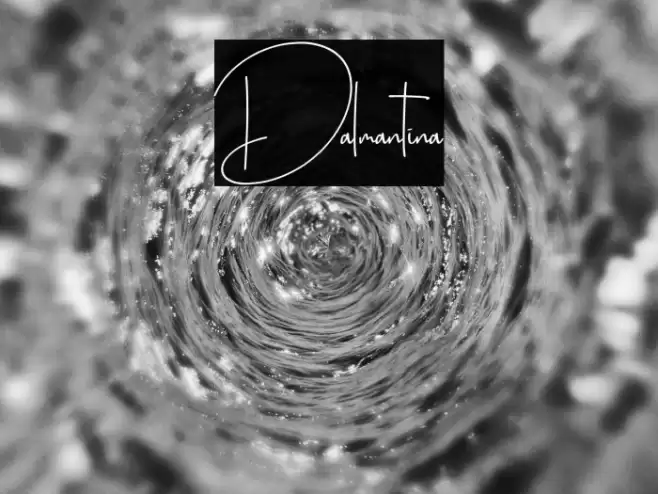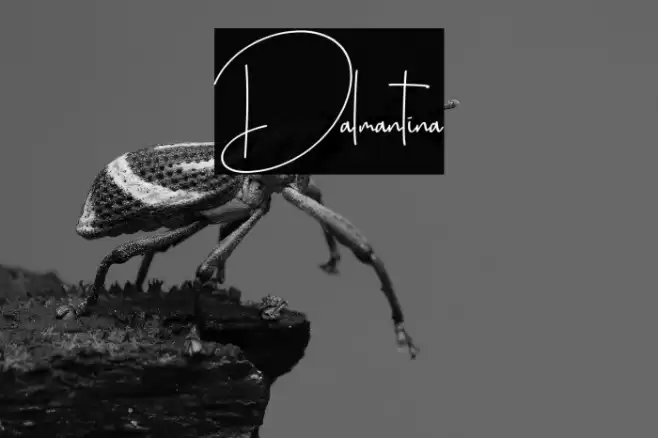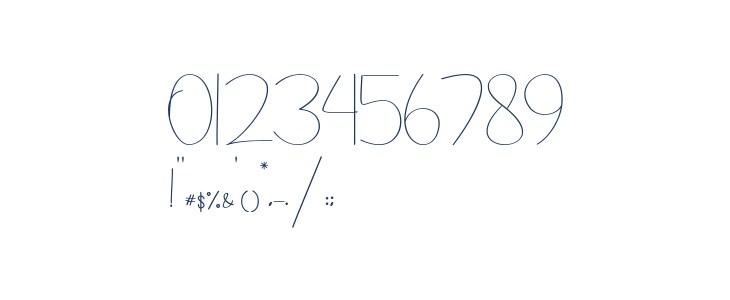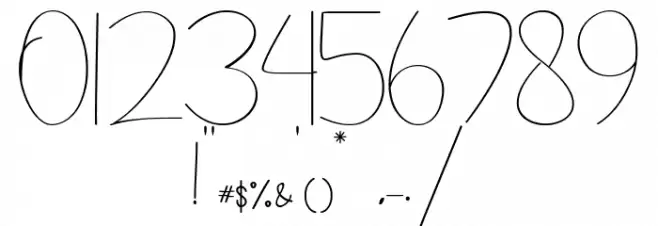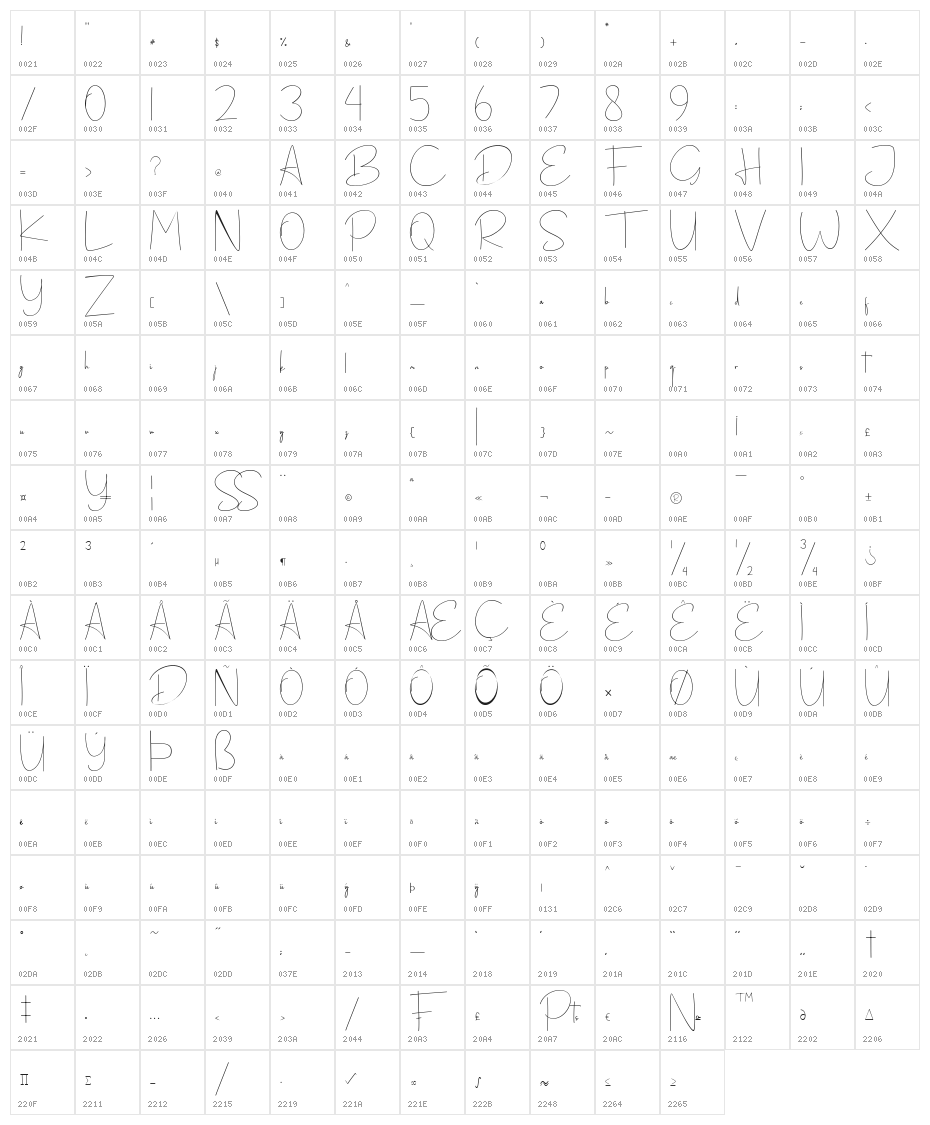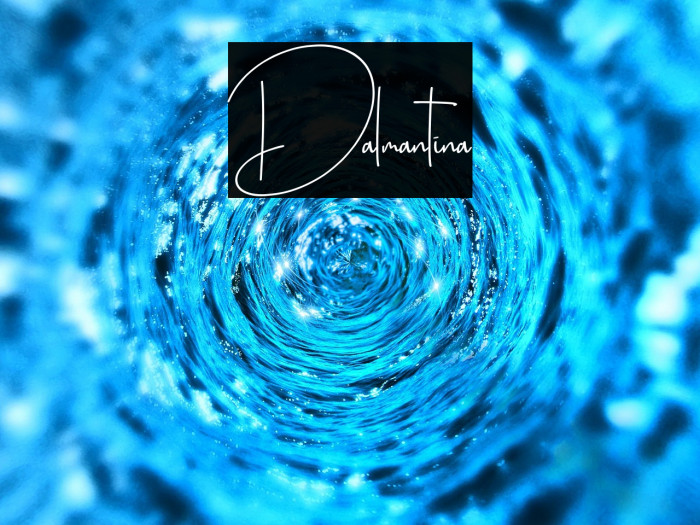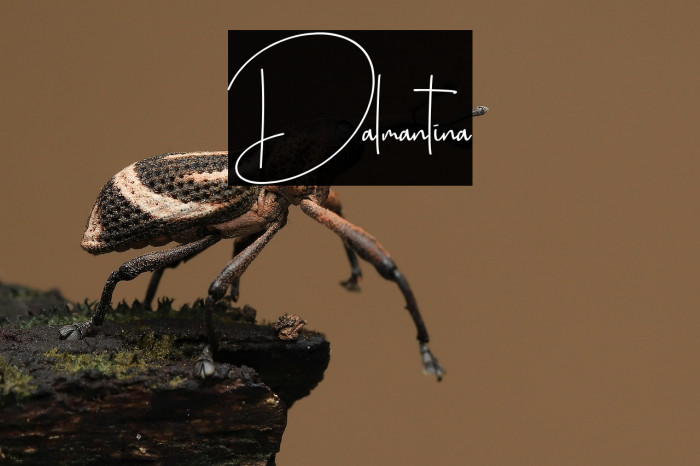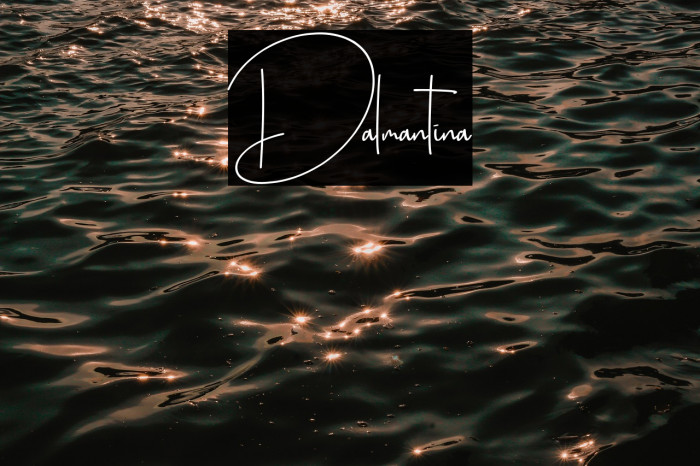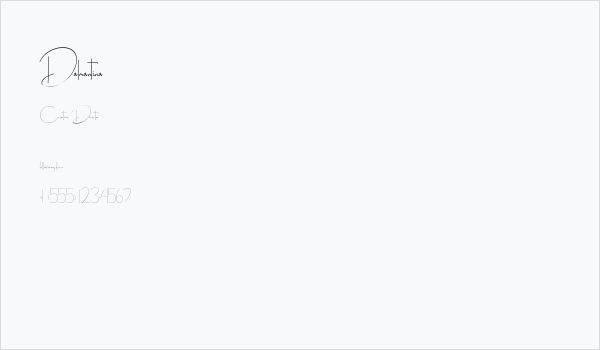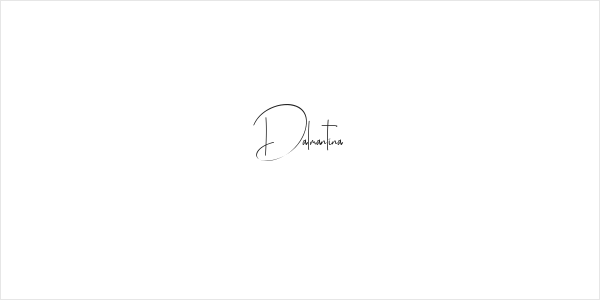
Dalmantina Font
Dalmantina Description
This font features a unique blend of elegance and modernity, characterized by its thin, elongated strokes and a slightly whimsical, handwritten style. The uppercase letters are tall and slender, with a playful yet sophisticated appearance. The lowercase letters maintain a consistent flow, adding a touch of casual elegance. Numbers are similarly styled, with a clean and minimalistic look that complements the overall design. Special characters are thoughtfully integrated, maintaining the font's cohesive aesthetic. This font's delicate lines and airy feel make it ideal for projects that require a touch of sophistication and creativity.
A thin, elegant, and modern handwritten-style font with a playful touch from Uncategorized fonts.
- Proposed Projects: Ideal for wedding invitations, branding, fashion editorials, and creative projects that require a sophisticated and modern touch.
- Weight: Light
- Use Case: Logos, Invitations, Editorials